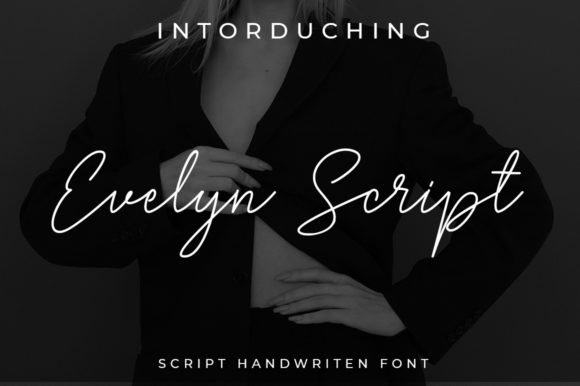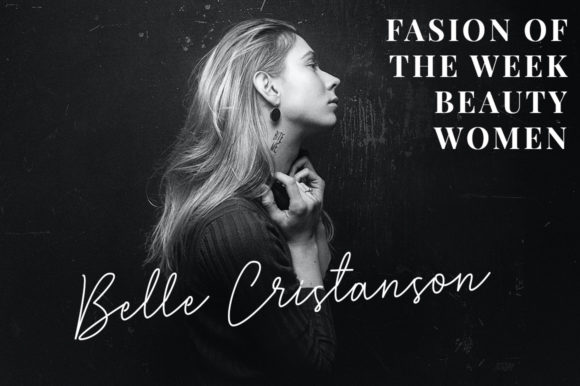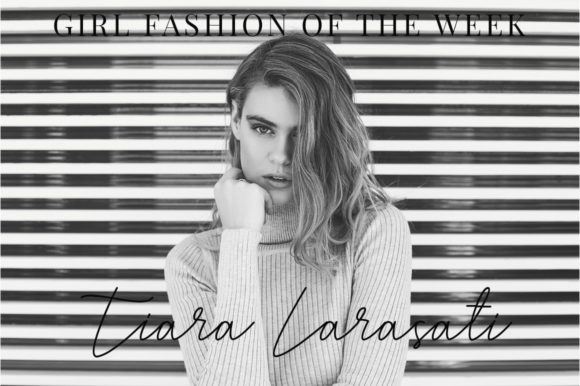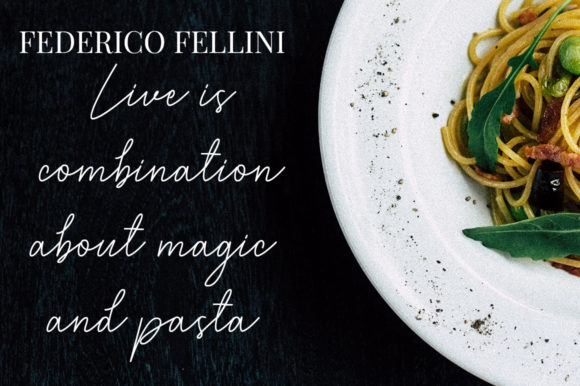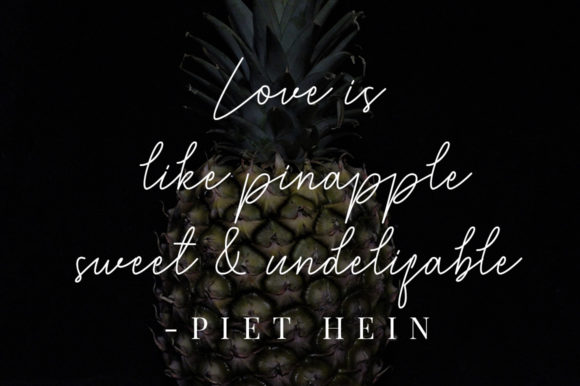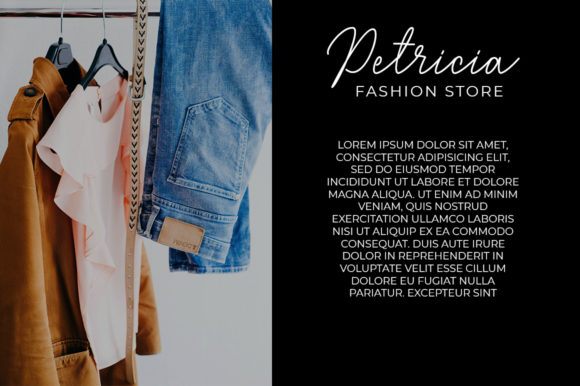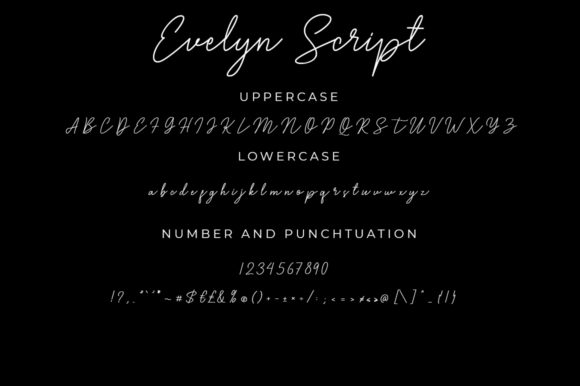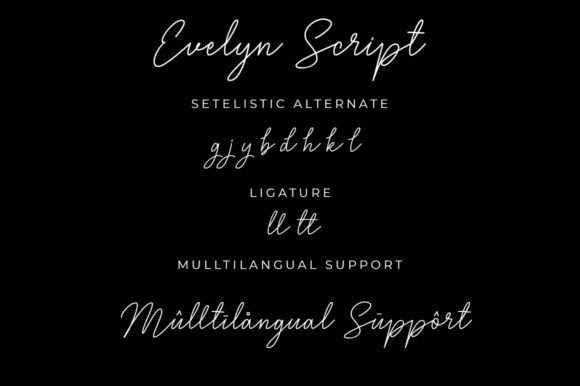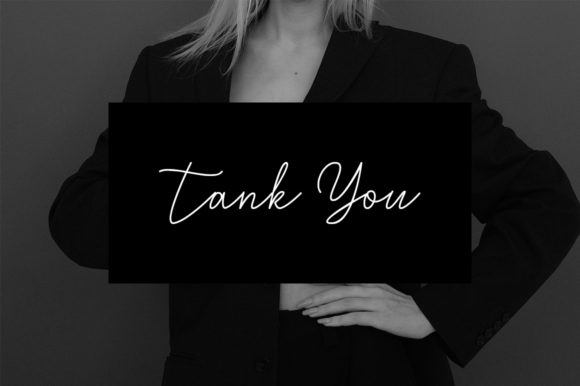
Evelyn Script Font
About Evelyn Script Font
Evelyn Script is a sophisticated and graceful handwritten font that exudes elegance and refinement. With its thin and smooth strokes, this font captures the beauty of calligraphy while also showcasing a contemporary and fresh style. Whether you’re creating wedding invitations, branding materials, or any other design project, Evelyn Script is sure to elevate your work to new heights.
The delicate and refined nature of Evelyn Script makes it perfect for projects that require an air of sophistication. Its thin strokes and graceful curves create a sense of fluidity and grace, adding a touch of elegance to your designs. Whether used for headings, titles, or body text, Evelyn Script brings a sense of beauty and refinement to every character.
One of the standout features of Evelyn Script is its versatility. It can be used in various design contexts, from formal events like weddings and galas to more contemporary and minimalist projects. Its timeless appeal ensures that your designs will remain stylish and sophisticated for years to come.
The smooth and consistent letterforms of Evelyn Script contribute to its overall aesthetic appeal. Each letter is carefully crafted, resulting in a harmonious and balanced composition. The font maintains legibility even at smaller sizes, making it suitable for a wide range of design applications.
Fall in love with Evelyn Script and let it bring your projects to new heights. Whether you’re designing wedding stationery, creating a logo, or crafting elegant branding materials, this font’s elegant and contemporary style will make a lasting impression. Its versatile nature and timeless appeal ensure that your designs will stand out and leave a lasting impact on your audience.
In summary, Evelyn Script is an elegant, thin, and smooth handwritten font that combines the beauty of calligraphy with a contemporary twist. Its sophisticated style and versatility make it suitable for a wide range of design projects. Let Evelyn Script elevate your designs and bring them to the highest levels of elegance and refinement.